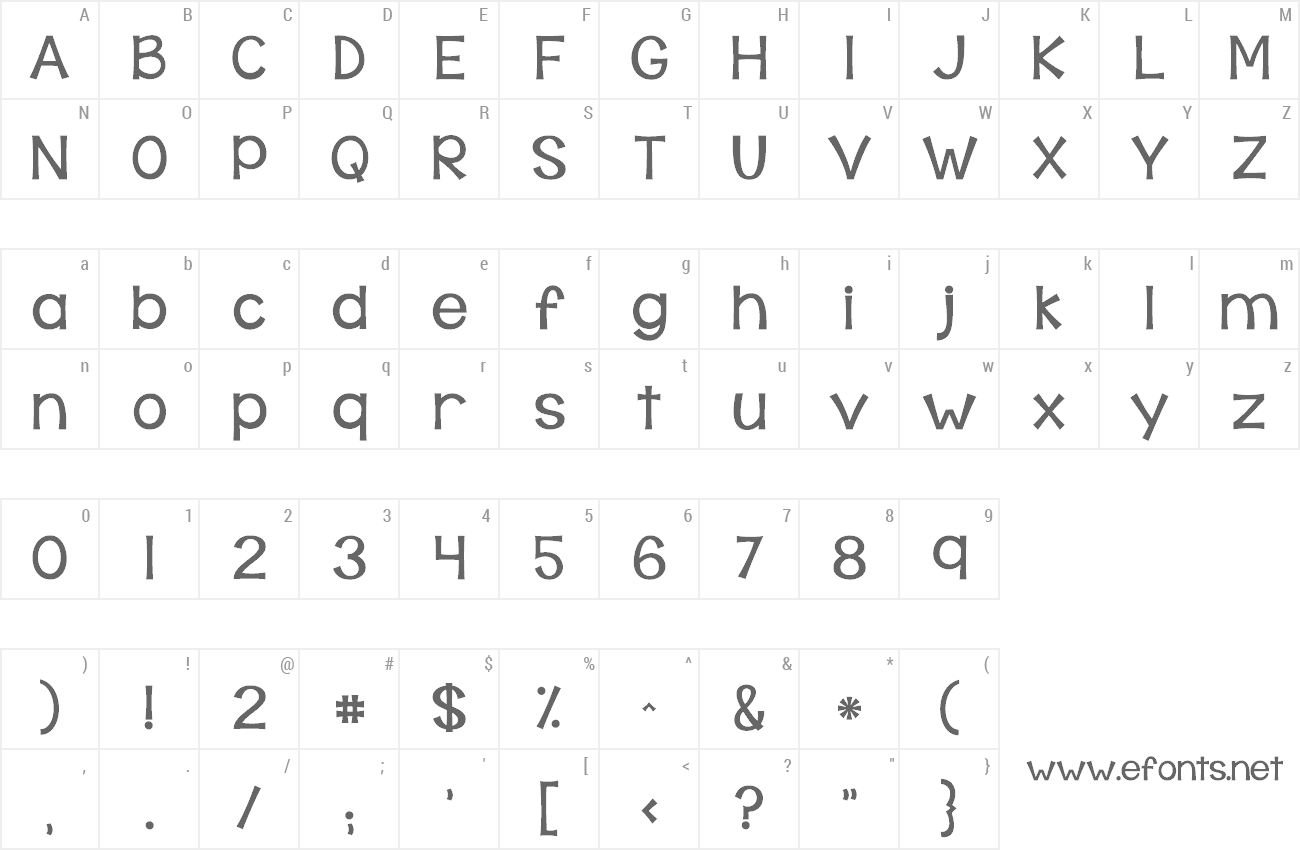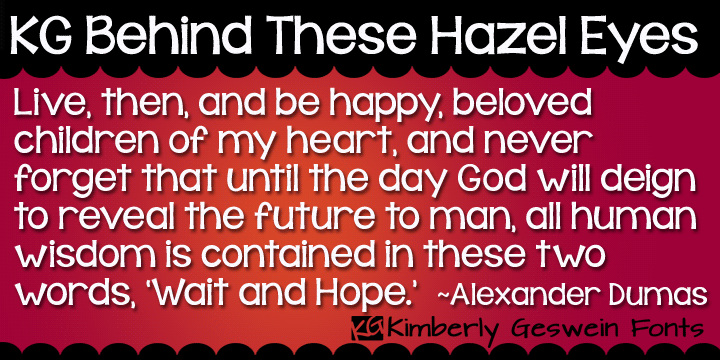
| Font name: | KG Behind These Hazel Eyes |
| Author: | Kimberly Geswein |
| Note by Kimberly Geswein | |
Perfect for teachers, this font has enough glyphs to cover 80+ languages and extra math symbols! It is neat and legible for early readers! For commercial licensing, please see http://kimberlygeswein.com |